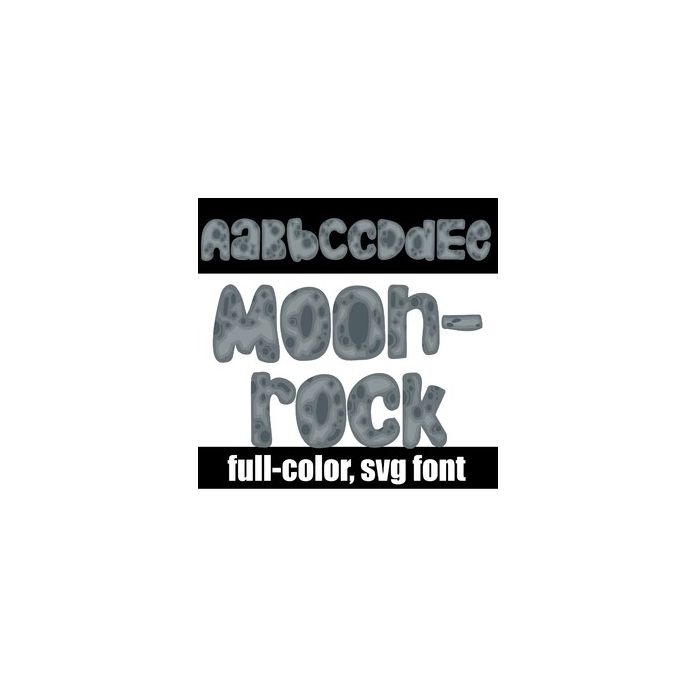
This full-color font looks like it was made out of moonrock or lava. This font works best for titles, displays, posters and more. Please note color fonts will show as black in non compatible programs. This font type is compatible with Silhouette Studio.